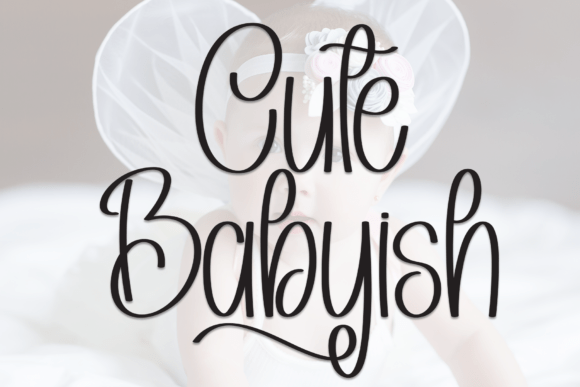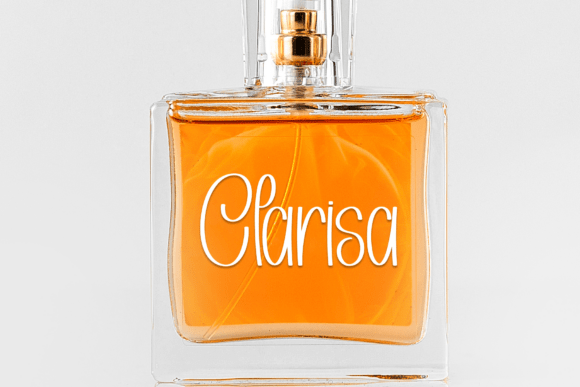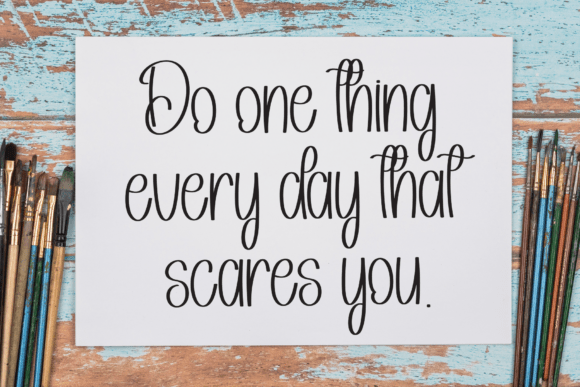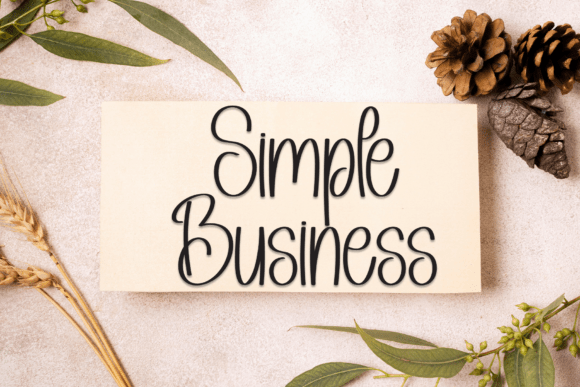
Cute Babyish Font
About the Cute Babyish Font
From logos to headlines, the Cute Babyish Font is the perfect choice for making a lasting impression. Cute Babyish is a stylish handwritten script font that blends modern elegance with a playful touch. Its fluid strokes and charming curves bring a personal feel to any design. Ideal for logos, packaging, and invitations, this typeface adds warmth, sophistication, and creativity to every project.
Cute Babyish Font excels in projects requiring a touch of friendly charm. It’s perfect for branding initiatives targeting children’s products, greeting cards, or feminine lifestyle brands. Use it for headlines, short taglines, and logos where its playful nature shines. Avoid using it for large blocks of text or UI elements; its delicate strokes aren’t optimized for readability in extended use.
Pairing Cute Babyish with a clean sans-serif like Open Sans for body copy provides excellent contrast and readability. For a more sophisticated feel, consider pairing it with a classic serif font such as Garamond or a geometric sans-serif like Futura. These combinations balance the font’s playful nature with a touch of formality.
The overall personality is best described as cheerful and approachable, with a touch of modern elegance. Its fluid forms and gentle curves contribute to a soft, welcoming aesthetic.
Cute Babyish Font Usage Examples
Cute Babyish Font Example